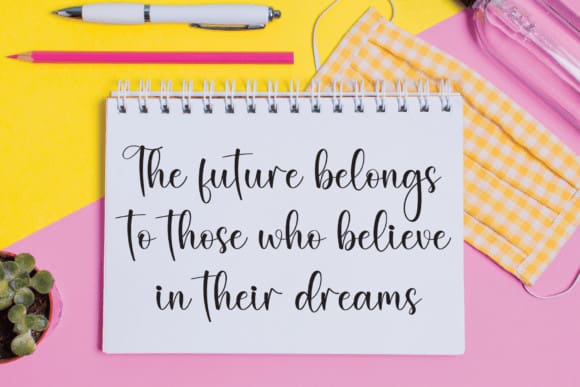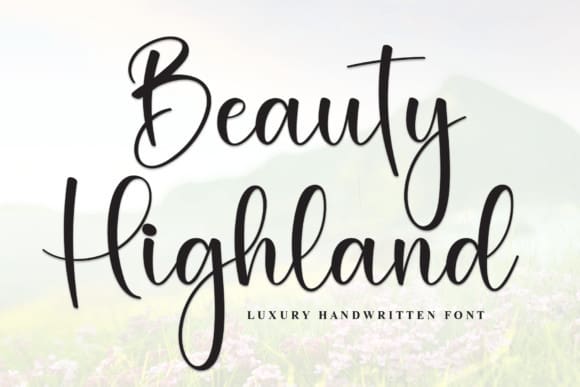
Beauty Highland Font
Beauty Highland Font is a gorgeous and bold handwritten font, crafted to give your headlines and logotype projects a stylish touch. This font reads as strong, confident, and dynamic and can add tons of nostalgic character to your designs.